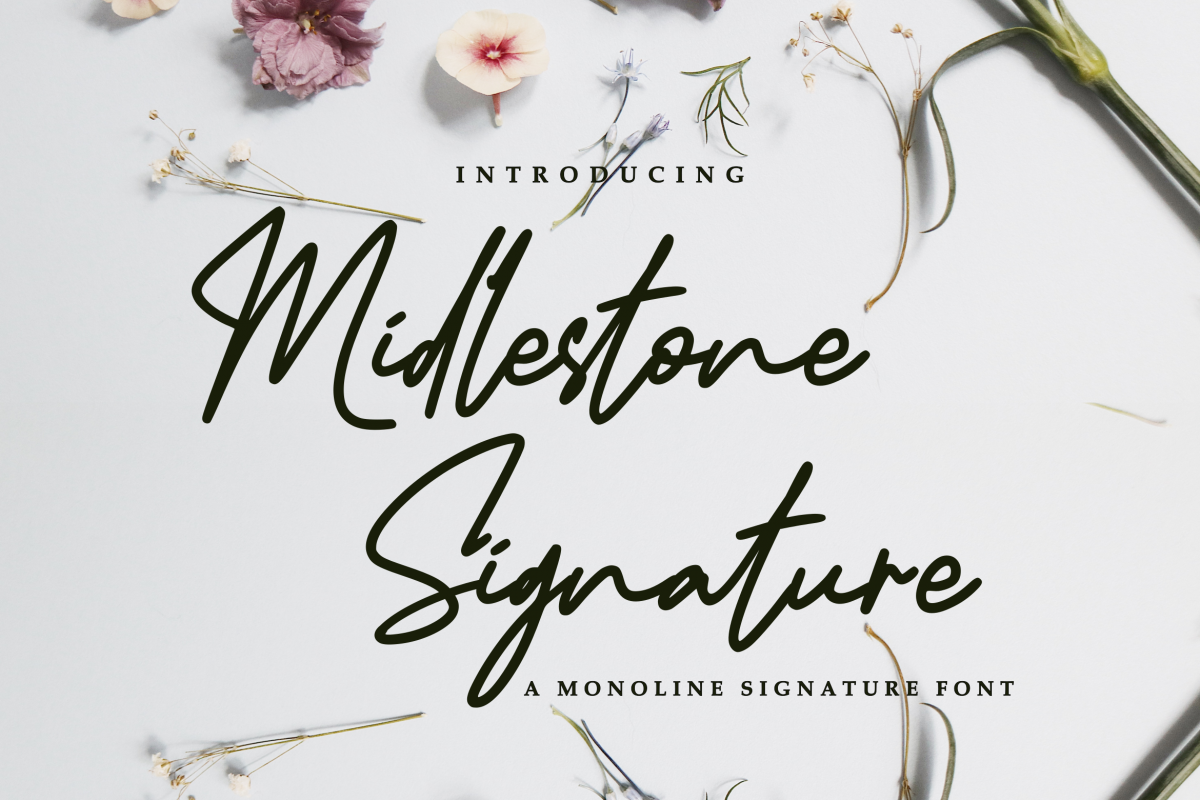
Midlestone Signature
Midlestone Signature is a beautiful monoline signature font. It has a natural writing style and will add a classy touch to your designs.